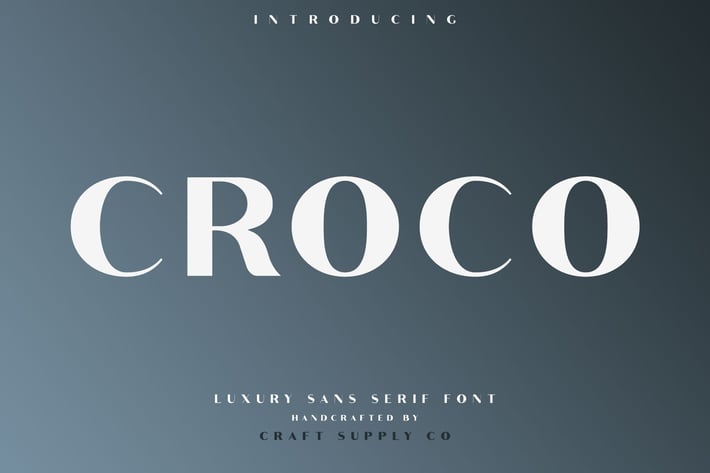
Croco - Luxury Sans Serif Font
Introducing New Font : Croco - Luxury Sans Serif Font Family
Croco Font Family has been crafted from scratch with a structural logic of its own: a fusion of pure geometry and optical balance. By combining a variety of styles Croco Font Family is suitable for Logo, greeting cards, quotes, posters, branding, name card, stationary, design title, blog header, art quote, typography
Croco Font Family also suitable for art, modern envelope lettering or book design, happening style like handdrawn design or watercolor design theme, craft design, any DIY project, book title, wedding font, pop vintage design, or any purpose to make our art/design project look pretty and trendy.
1. All Caps Font
2. Standard Ligatures
3. Numerals & Punctuations (OpenType Standard)
4. Accents (Multilingual characters) AÀÁÂÃÄÅCÇDÐEÈÉÊËIÌÍÎÏNÑOØÒÓÔÕÖUÙÜÚÛWYÝŸỲŸÆŒßÞþ